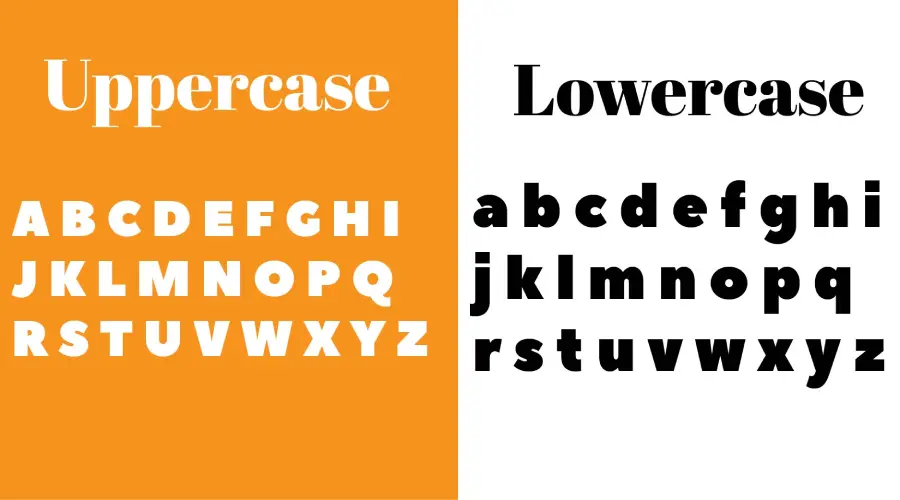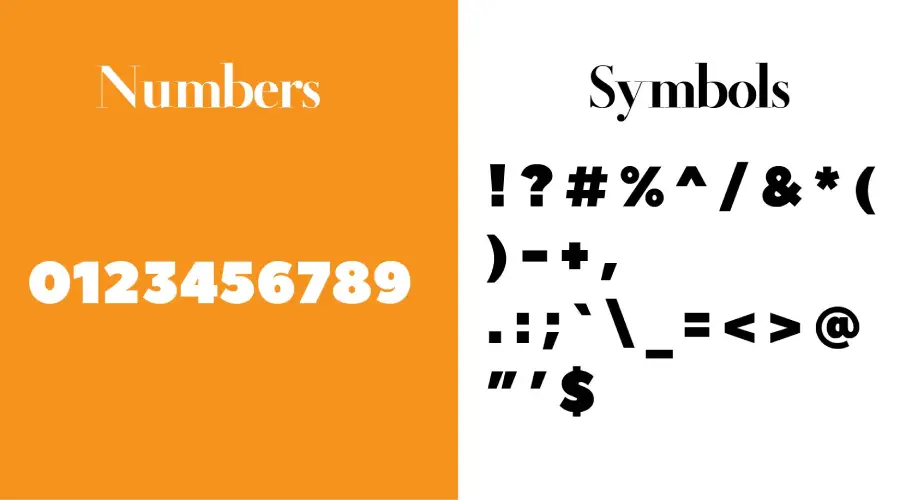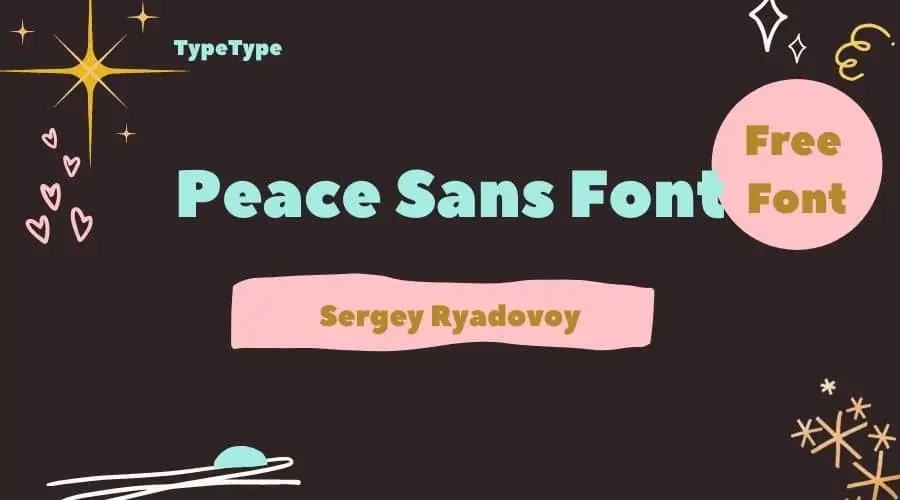
Peace Sans Font is a Bold Sans Serif typeface that has multiple owners Designer: Sergey Ryadovoy and Art Director: Ivan Gladkikh. Peace Sans has great legibility and is very user-friendly. For its bold style, Peace Sans can easily attract an audience. With Latin and Cyrillic character support, This font can make your typography more peaceful and kind.
Bold fonts are usually used in the header section. If you want to highlight a word or sentence, then you can use this font. Peace Sans also has an attractive look. For huge designing purposes, Such as Business cards, Headlines, and Brochures layouts, Peace Sans is at the top of everyone’s favorite list. Also, you can use this font in all kinds of documents as a header font. , you can use this on your website and presentation too.